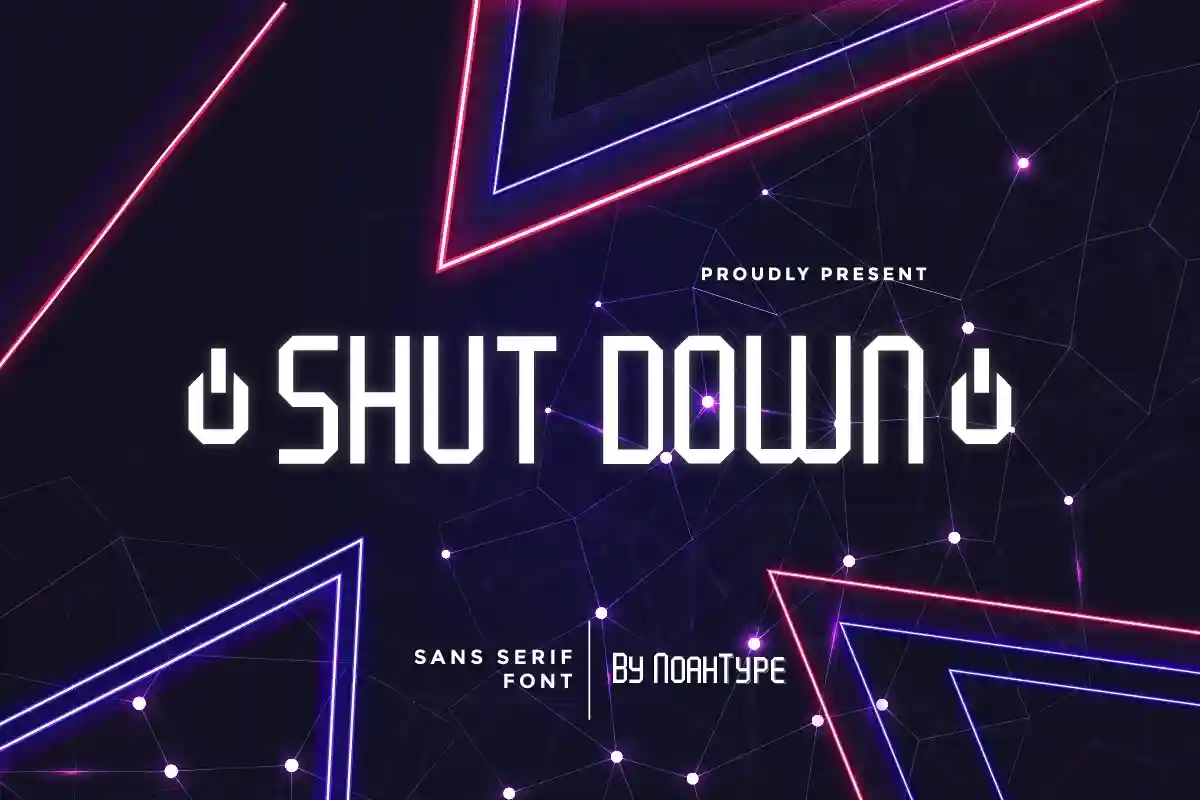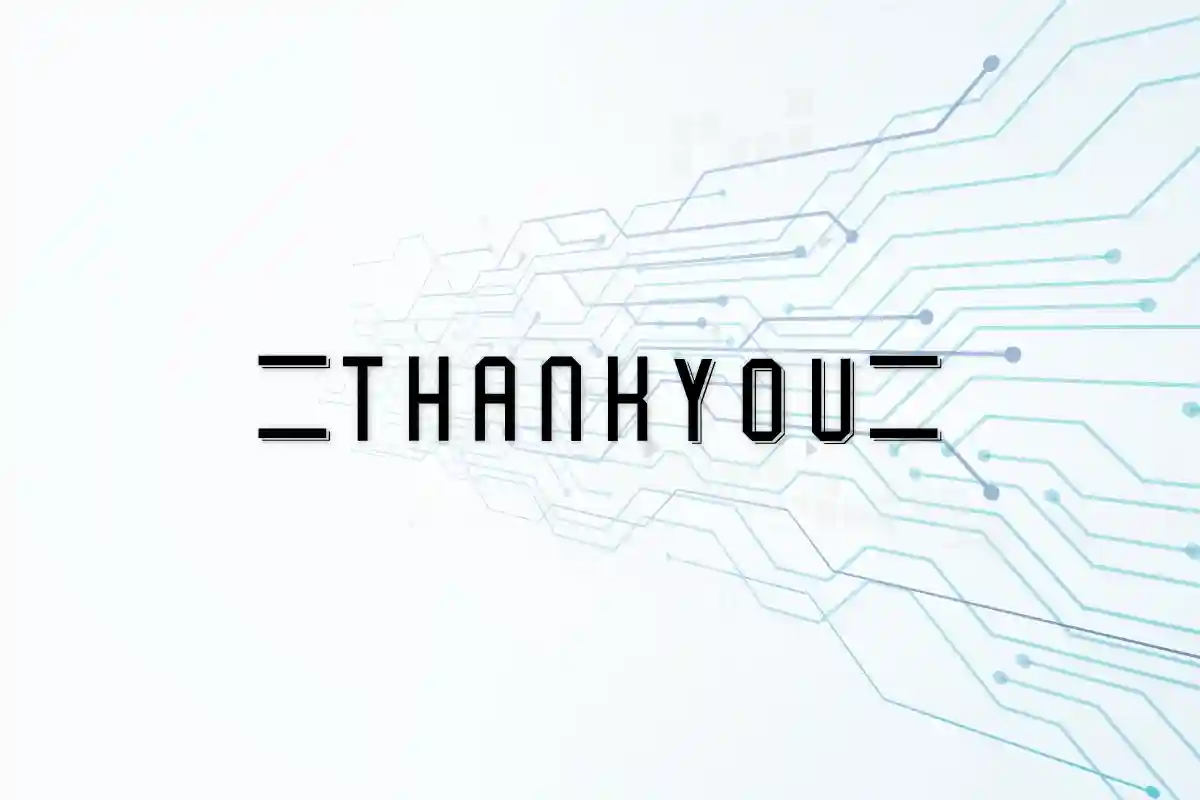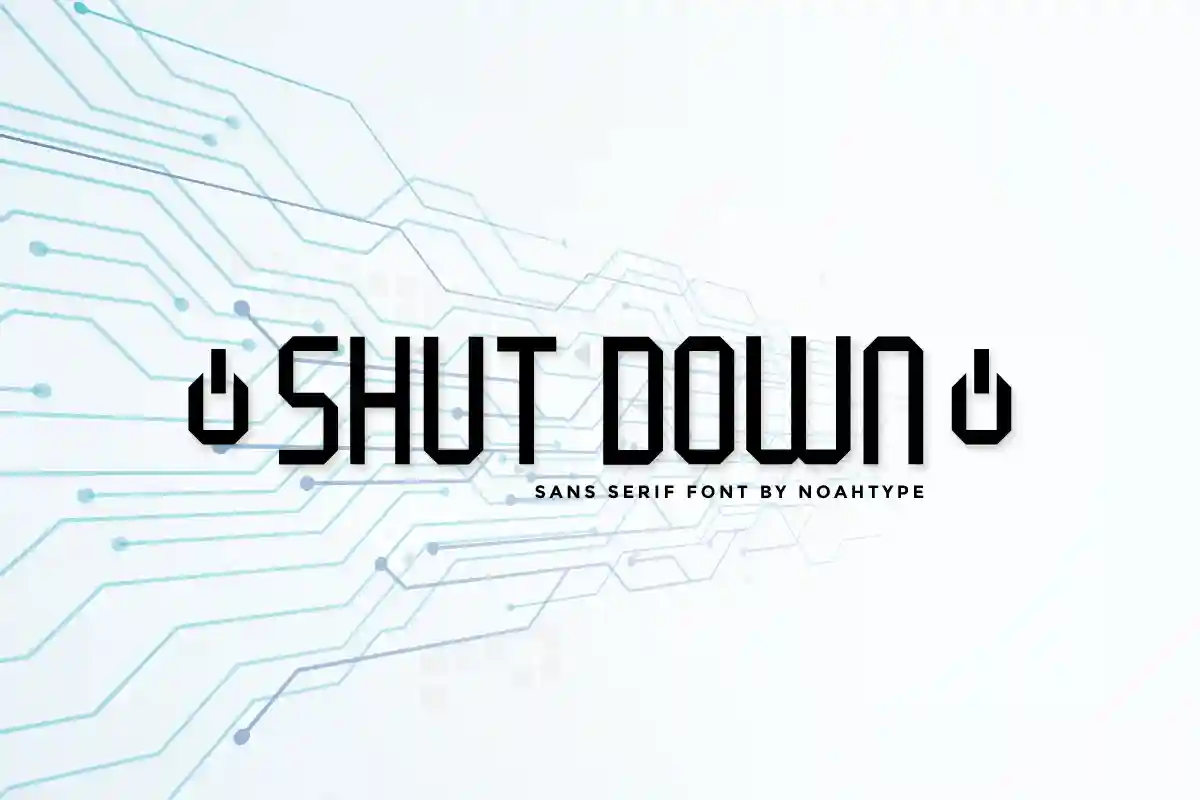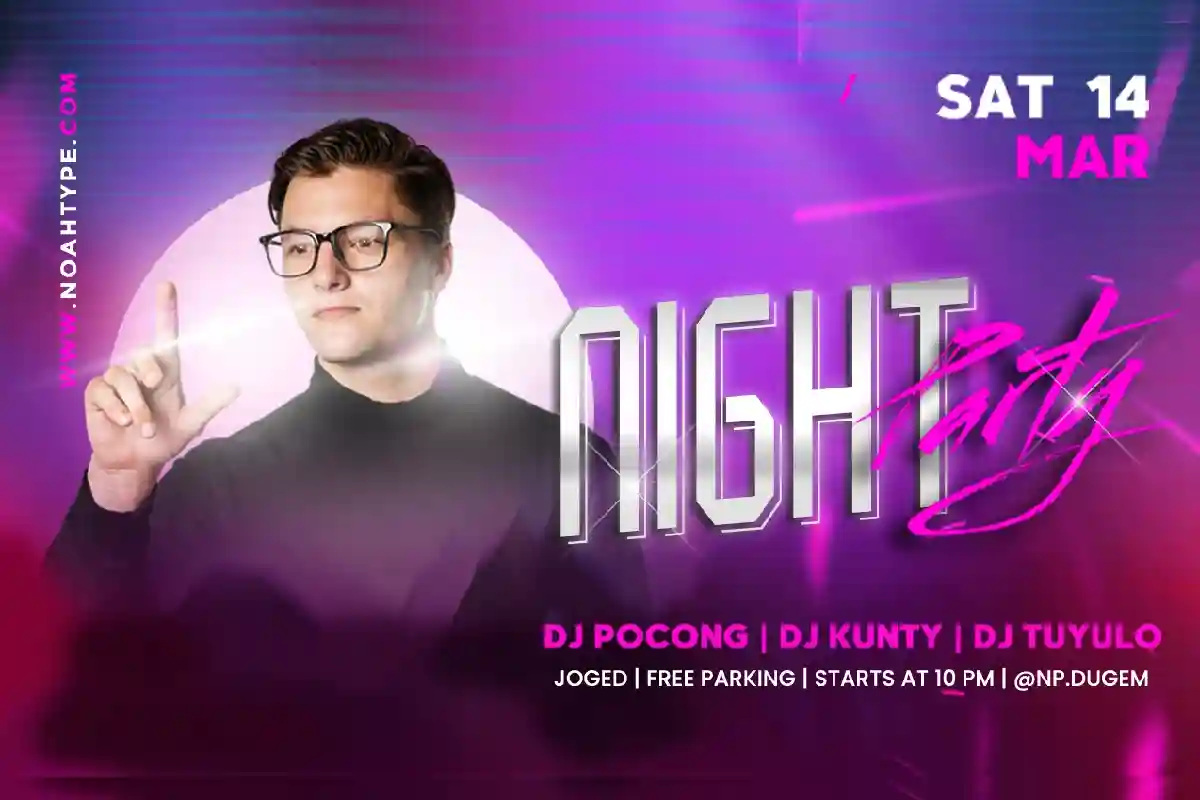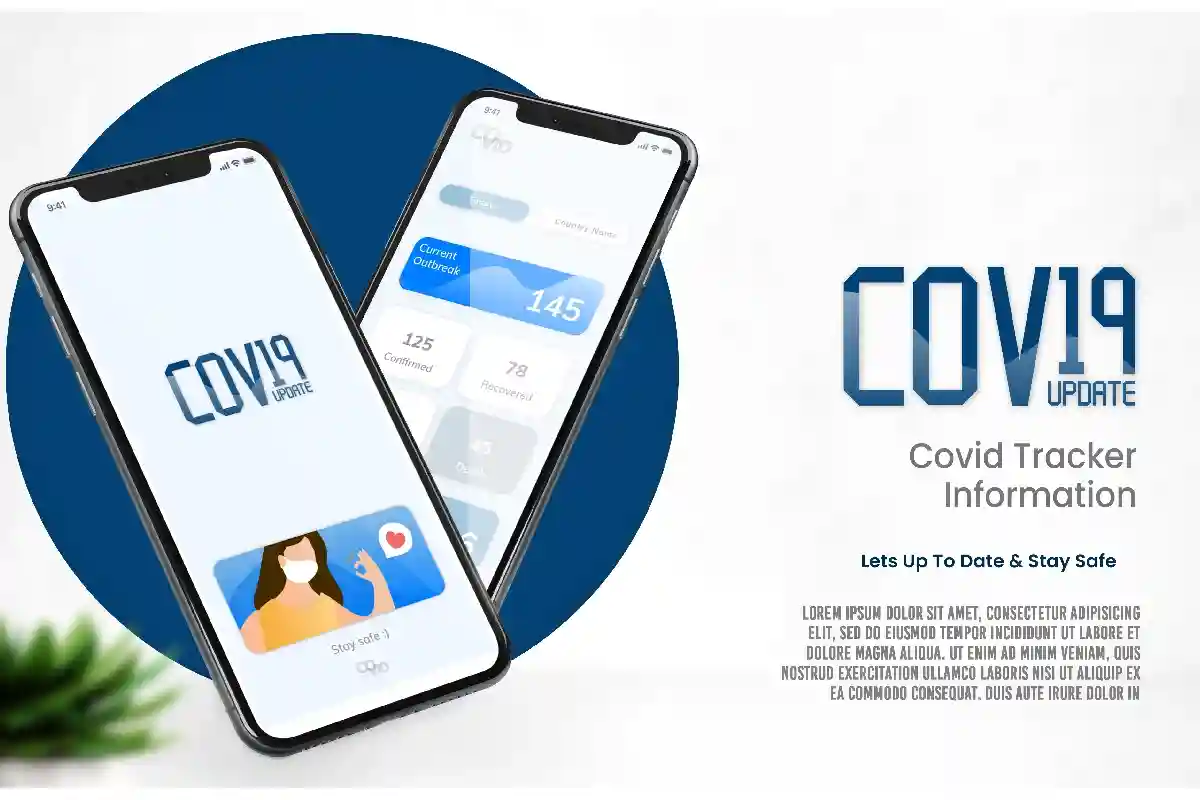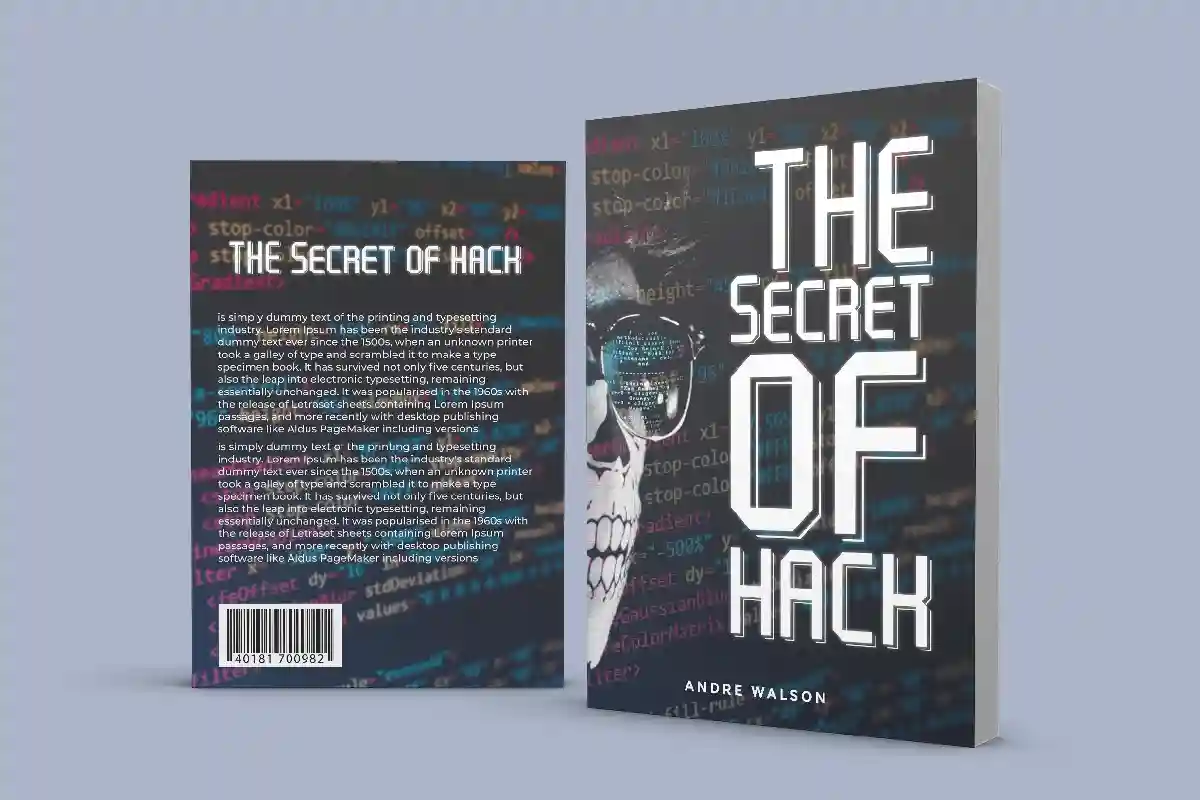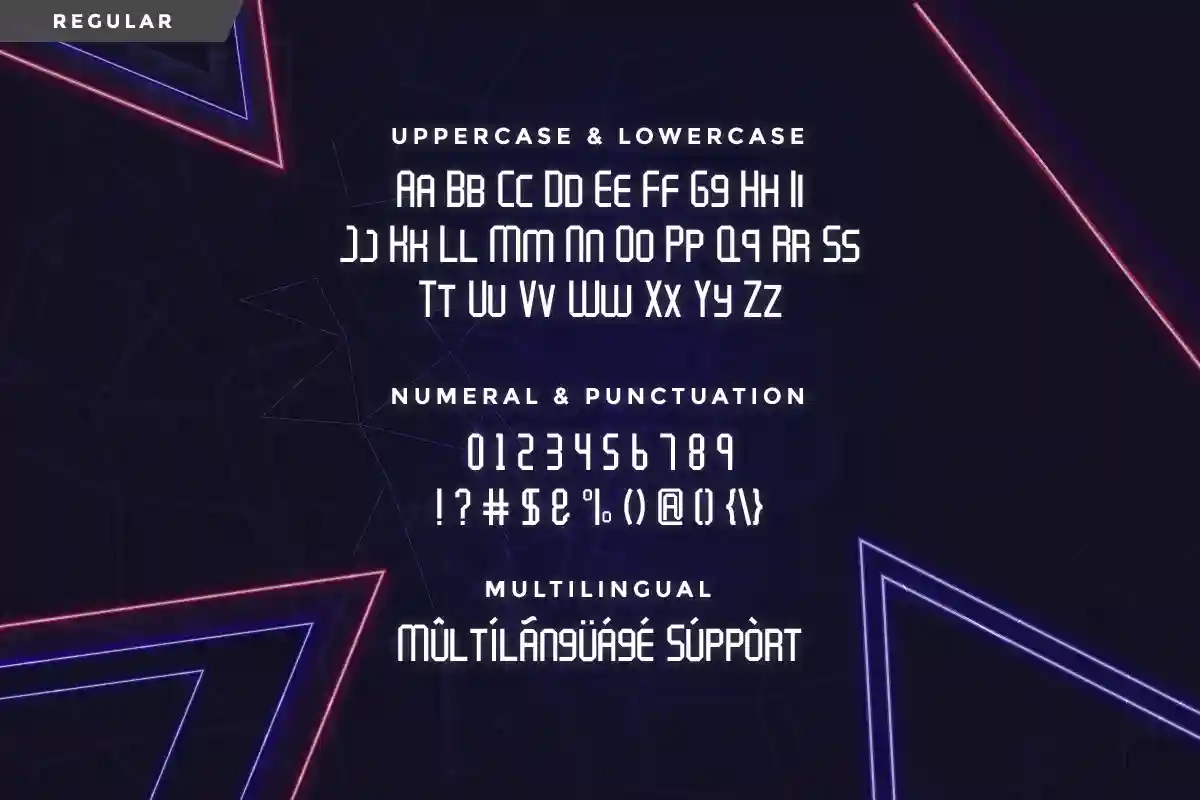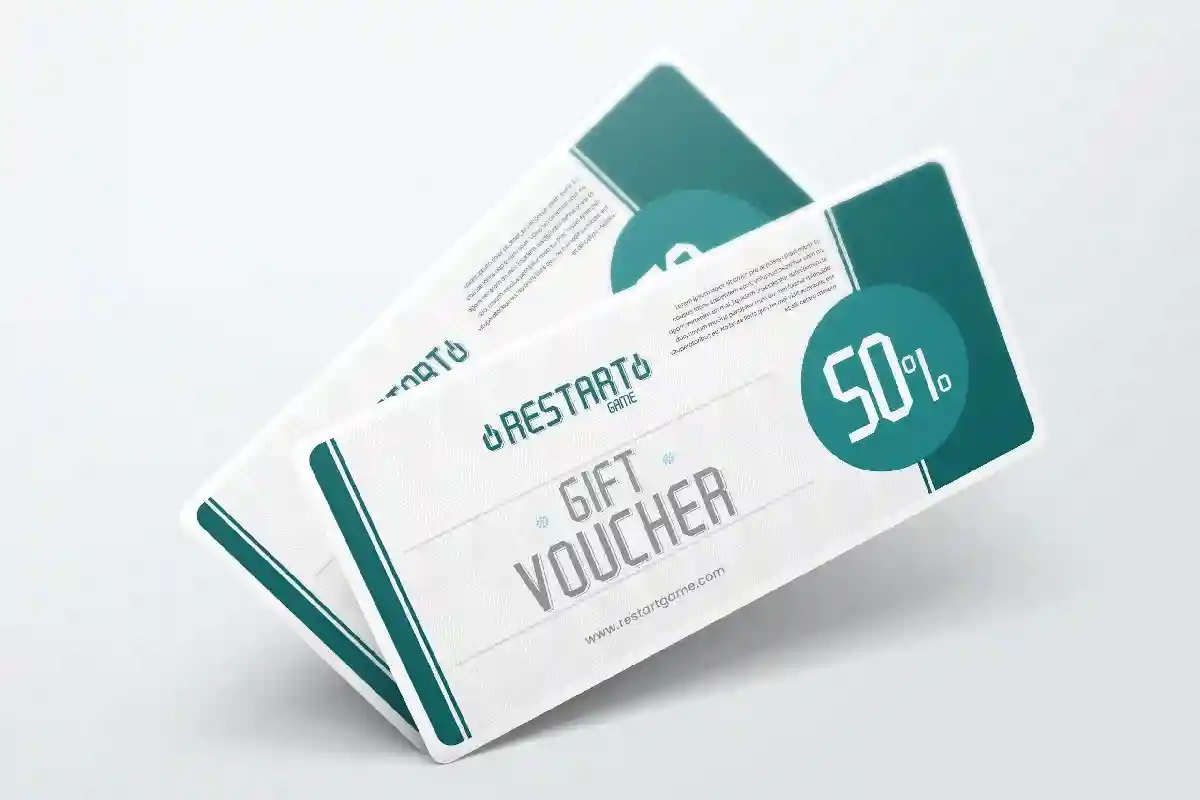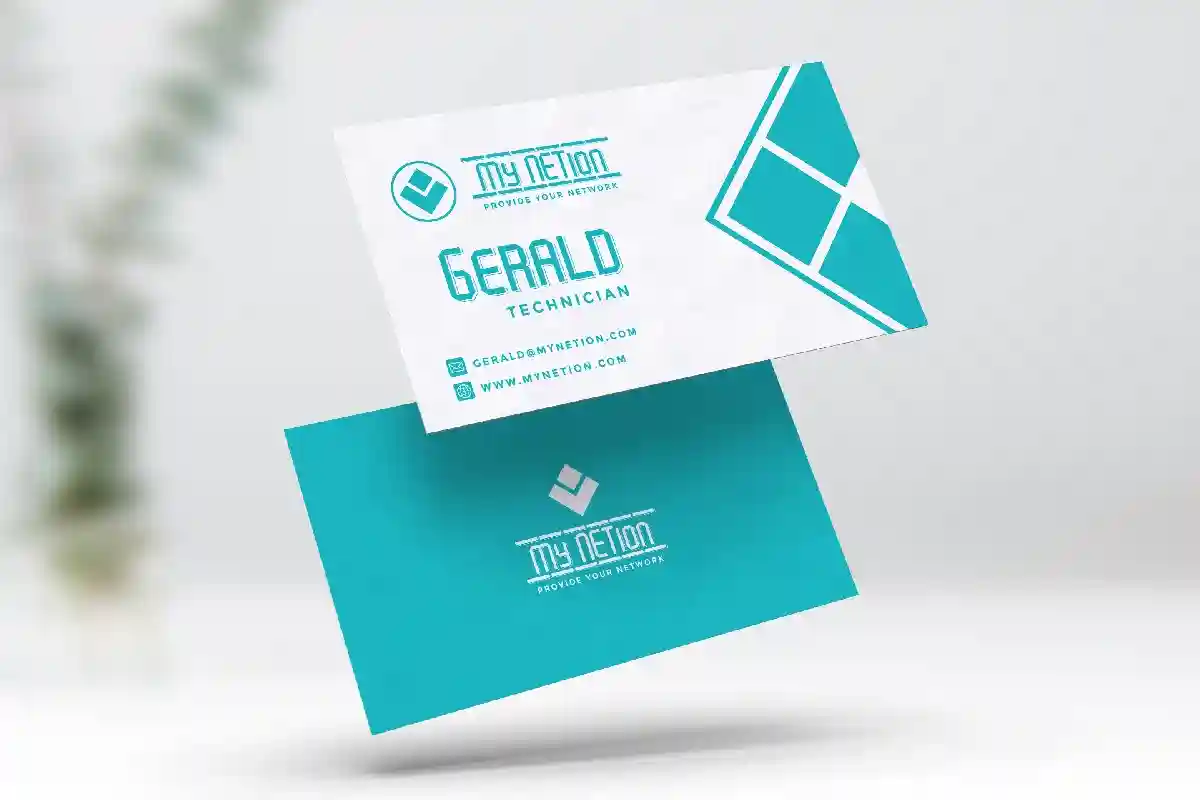
Shut Down is a casual modern sans serif display font family. The font was inspired by many startup and technology company. The font has a unique modern style that will bring the authentic excusive touch to the design. It will also works for tech company, startup, business, real estate, technology, health products etc
Shut Down Font has two styles : Reguler and Shadow. It includes full set of Uppercase and Lowercase Basic Characters, Numerals and Punctuation, also it contains ligatures to make it awesome. You can also combine two or more styles on the text like we did on the cover, so you will great even more unique and special font. The font is perfect for many projects, headlines, logos, poster, tittle, products, etc
Modern and bold design with strong visual impact
Perfect for branding, advertising, and editorial projects
Works seamlessly for both large and small text sizes